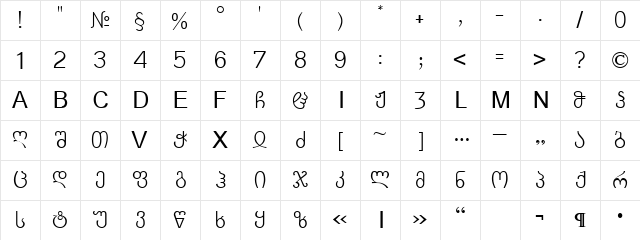
G&G_IliaM Normal
G&G_IliaM offers clean, dependable letterforms without strong stylistic allegiance, making it a practical choice for designers who need flexibility.